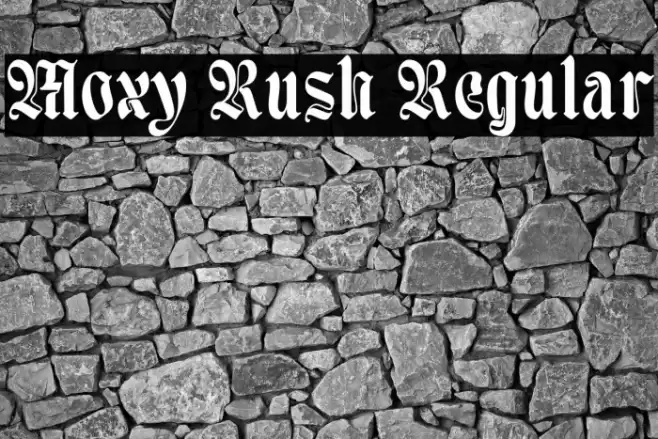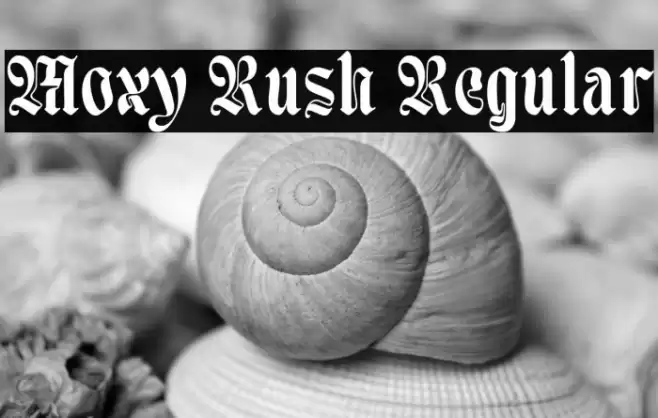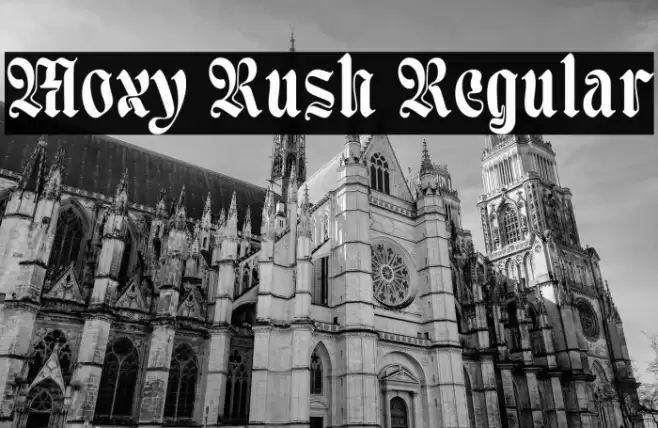
Moxy Rush Regular Font
Moxy Rush Regular Description
This font features a bold and dramatic style reminiscent of traditional blackletter typefaces. The characters are ornate with sharp, angular lines and intricate detailing, giving it a historic and gothic appearance. The uppercase and lowercase letters maintain a consistent style, with the uppercase being more elaborate. The numerals and special characters follow the same decorative theme, making them stand out. This font is highly stylized, capturing the essence of medieval script with a modern twist.
A bold, gothic blackletter font with intricate detailing from Uncategorized fonts.
- Proposed Projects: Ideal for projects requiring a historic or gothic touch, such as event posters, book covers, or branding for themed events.
- Contrast: High
- Overall Style: Gothic, Historic, Decorative